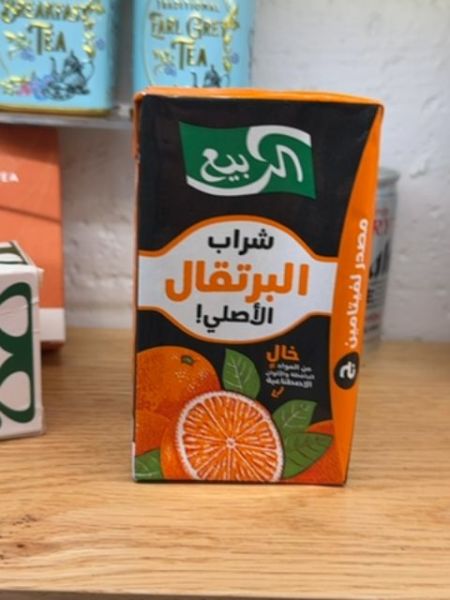
Al-Rabi'i
This is an orange drink, providing a refreshing citrus flavor, perfect for hydration and enjoying the taste of oranges.
The typography on the packaging is bold and modern. The product name is written in a large, legible Arabic script that is both decorative and clear, providing a strong brand presence. The contrast between the white and orange text on a dark background enhances readability and visual appeal.
The packaging features a vibrant orange color, consistent with the product flavor, and includes images of whole and sliced oranges to represent freshness. The brand logo is prominently displayed at the top, set against a dark background that contrasts well with the orange theme.